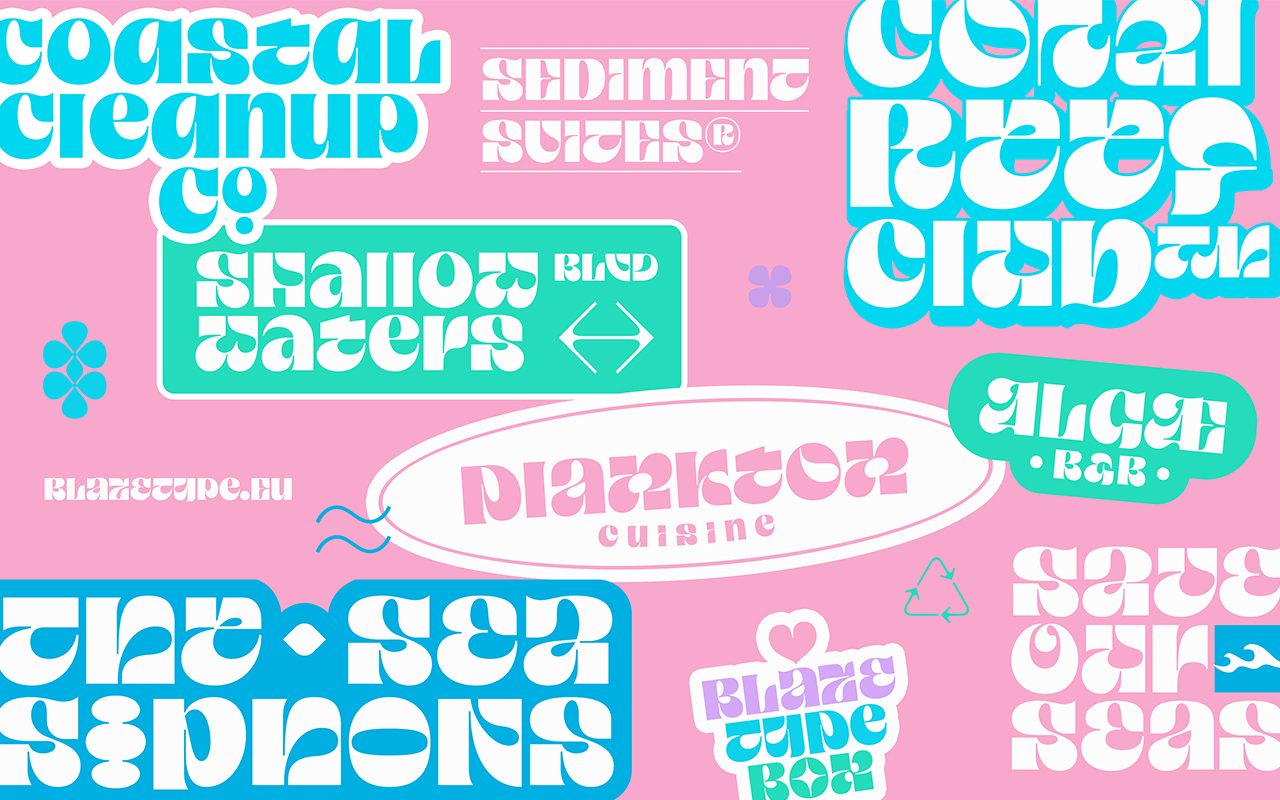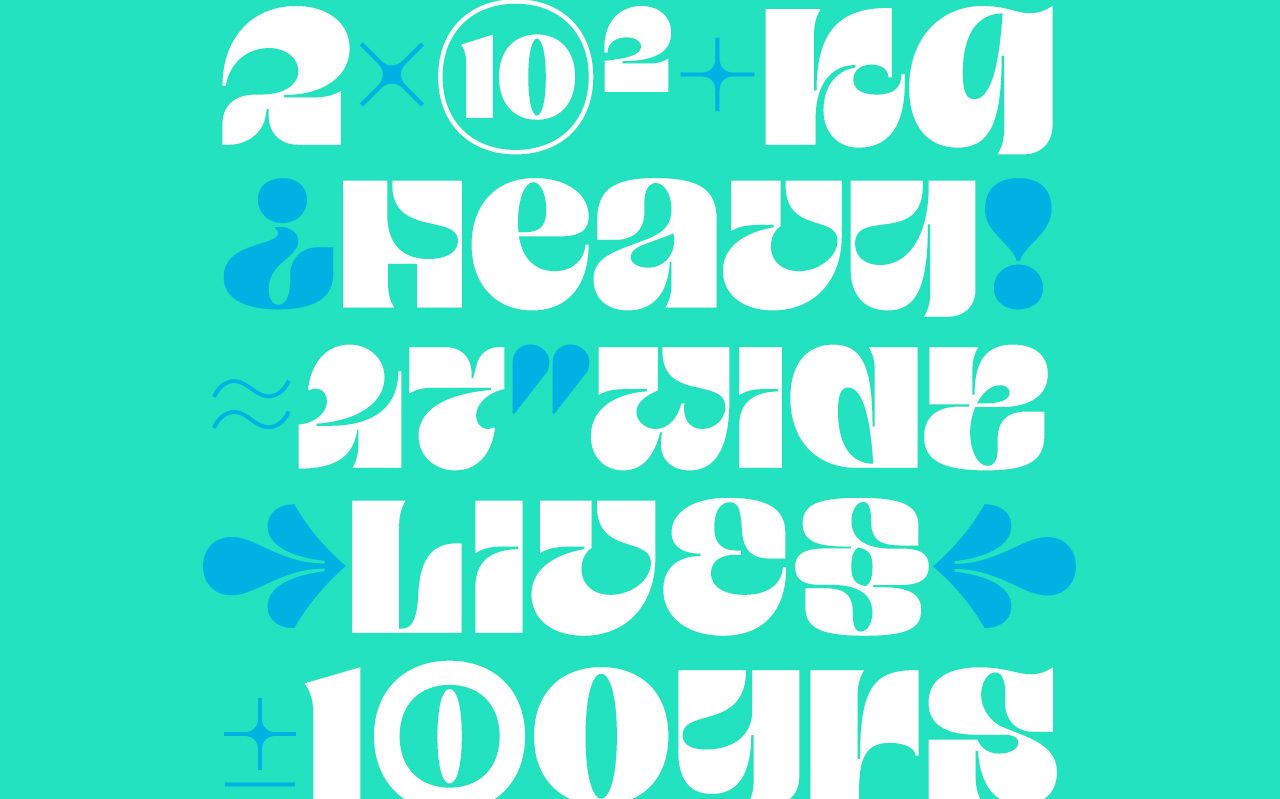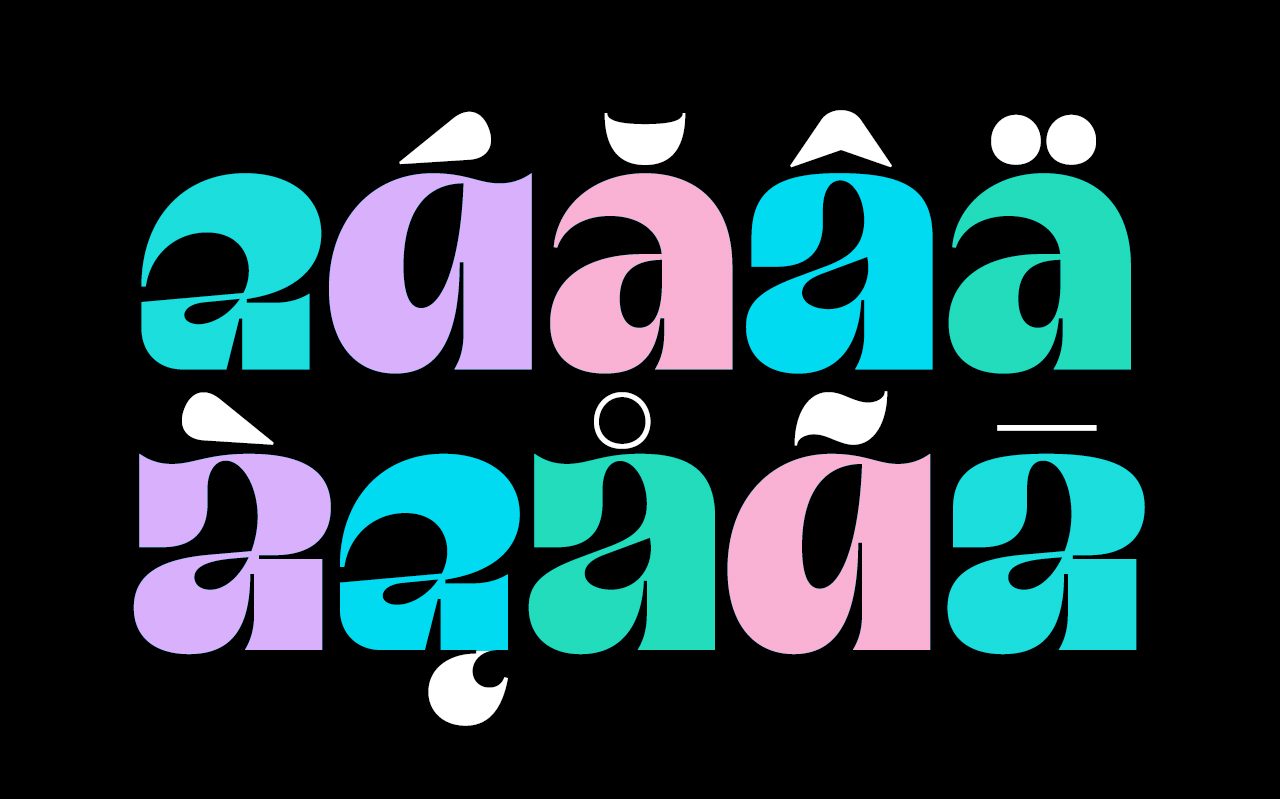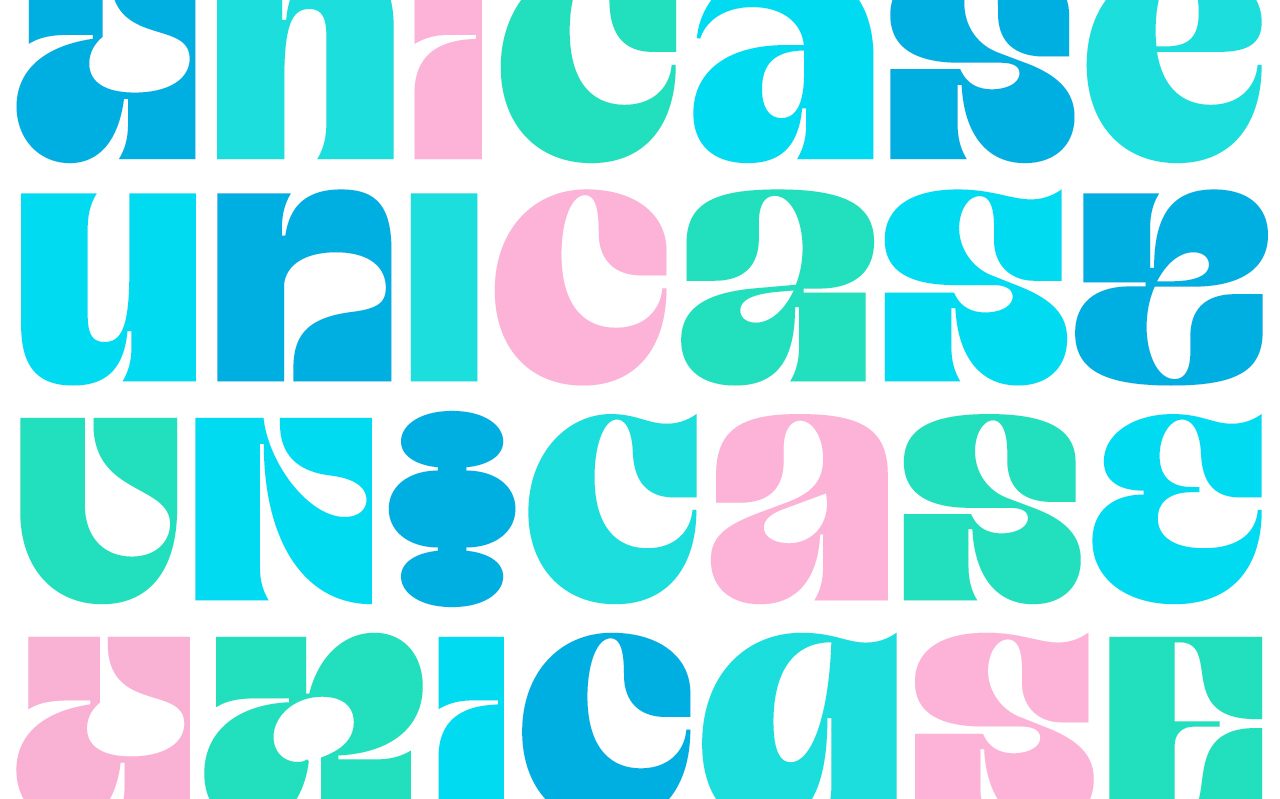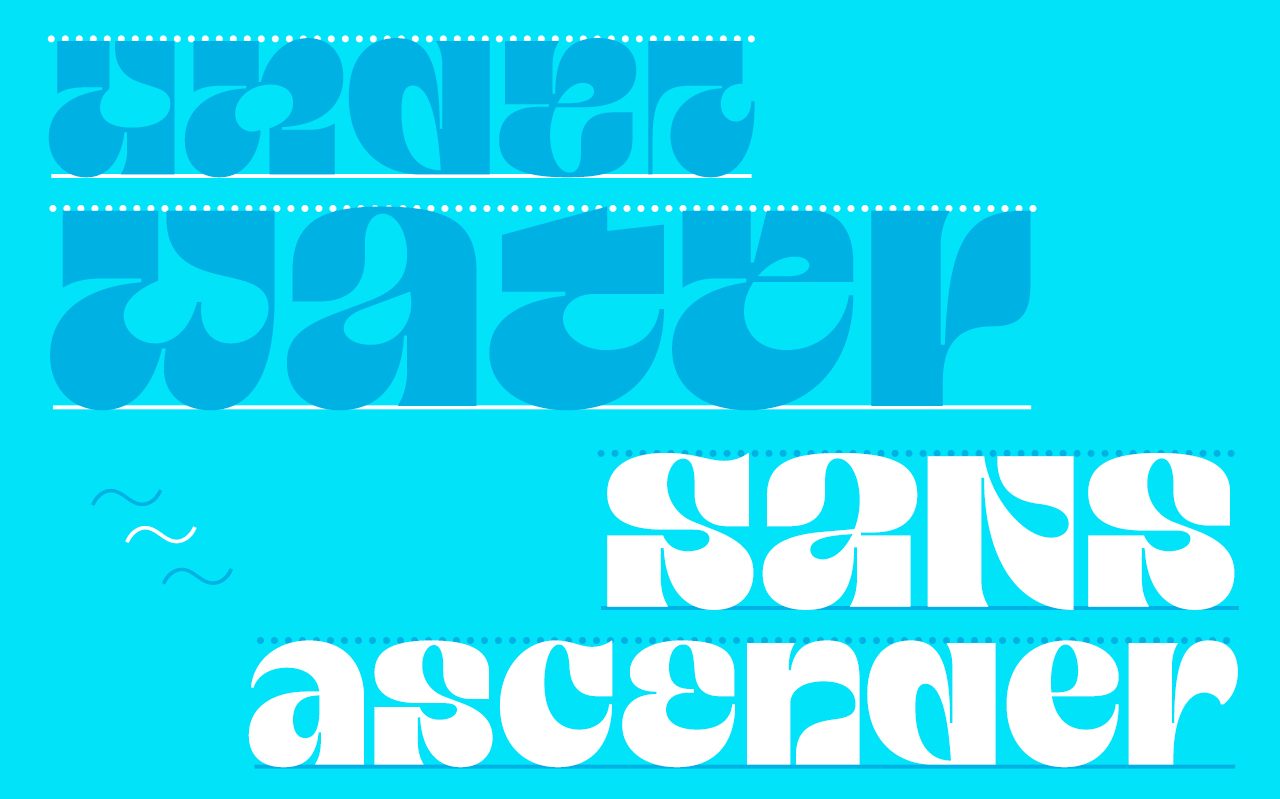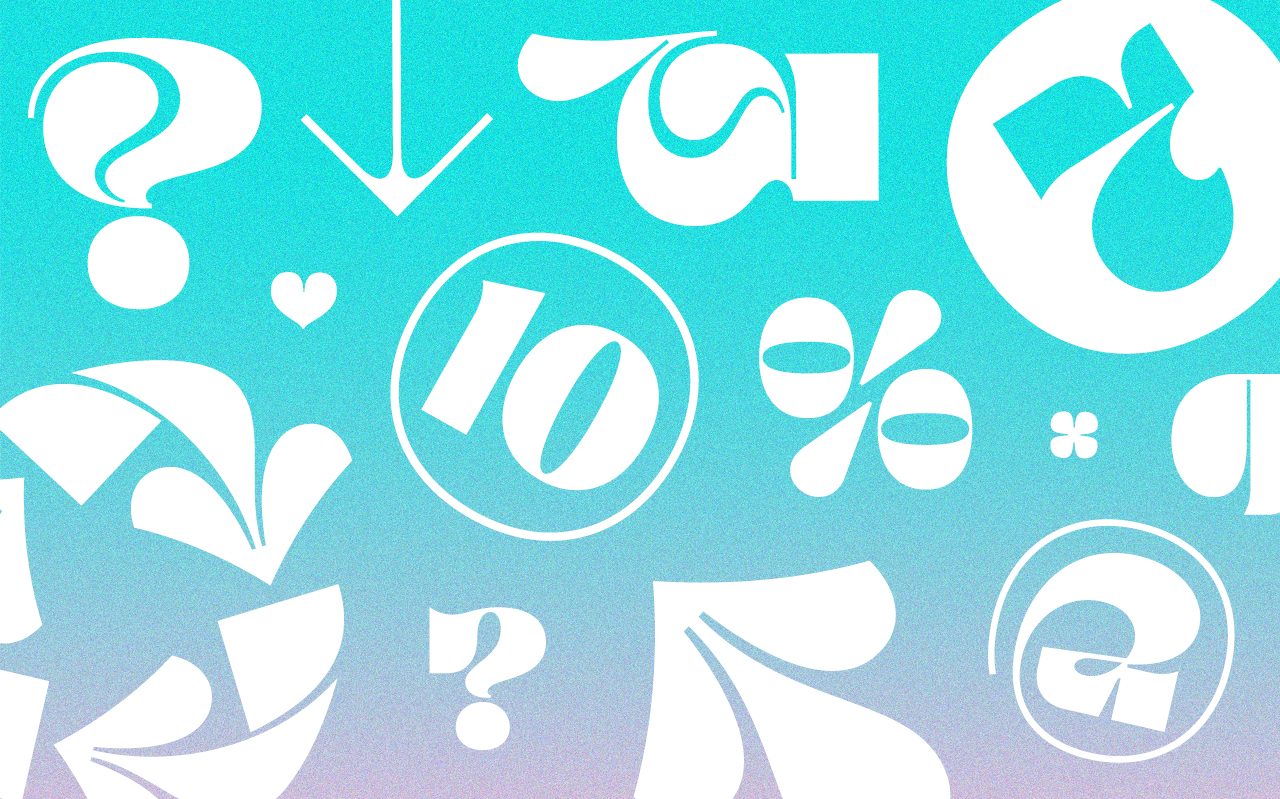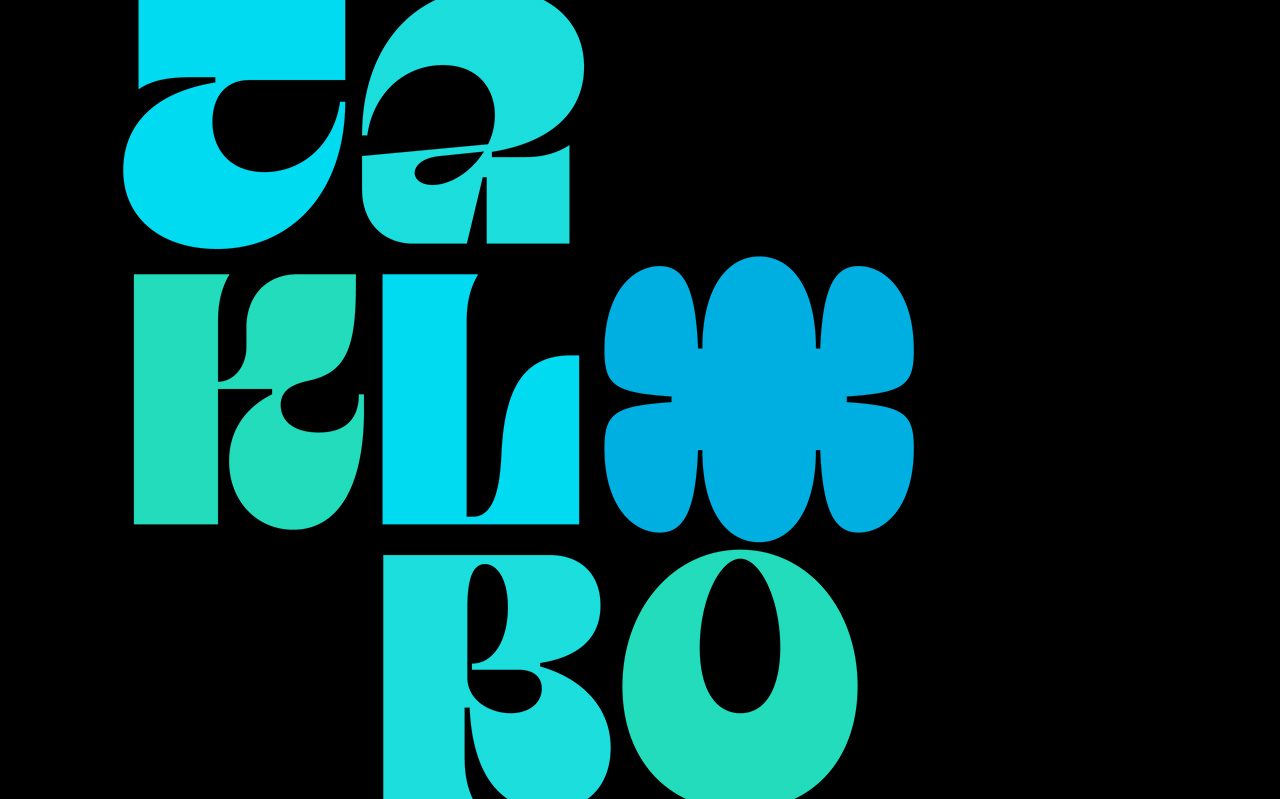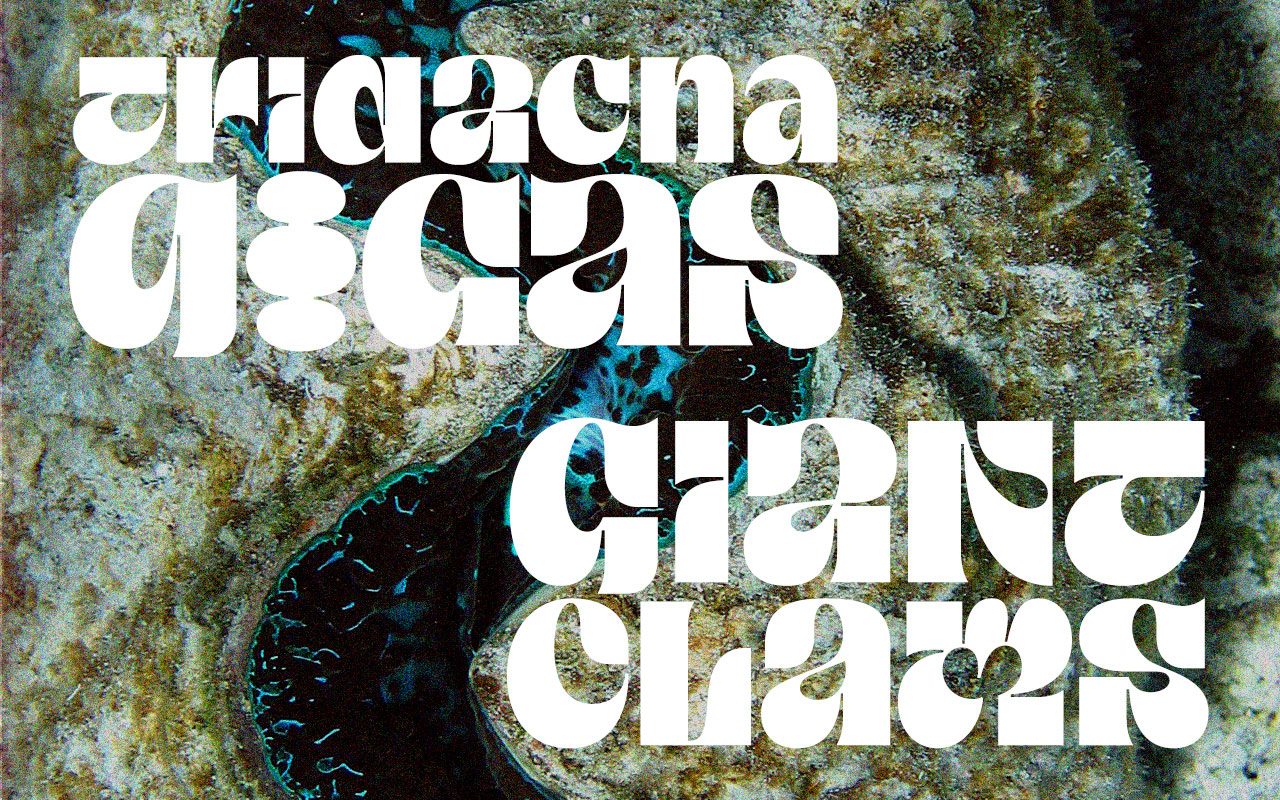
Taklobo
Taklobo is a heavy display serif typeface resembling the proportions and curves of the world's largest living bivalve mollusks—the giant clams, locally known as taklobo—found in threatened numbers off the underwater shores of the Philippines.
Given the vulnerable conservation status of giant clams largely due to overexploitation and habitat destruction, the design process was driven by the awareness that these marine treasures must stay underwater where they belong. From rejecting ascenders and pushing the heights of the main letterforms to align at the cap line emerged this dense yet majestic unicase type construction.
Hard on the outside but soft on the inside, Taklobo is both rigid and fluid in nature, in shape for eclectic visual identities, splashy titles and headlines, and unapologetic designs that dare to make a bold statement.